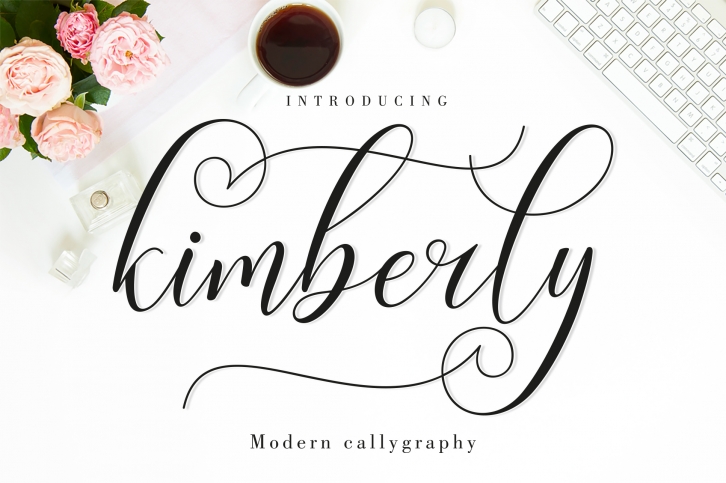
Kimberly Script is a beautiful font that was designed by amarlettering. It's a great choice for designers and creatives who need such a font. It was released on August 3, 2017 and the file size is 9.86 MB. Kimberly Script may give a more youthful, expressive and casual look to your project. It is a very beautiful, refined, elegant, and high-quality font.